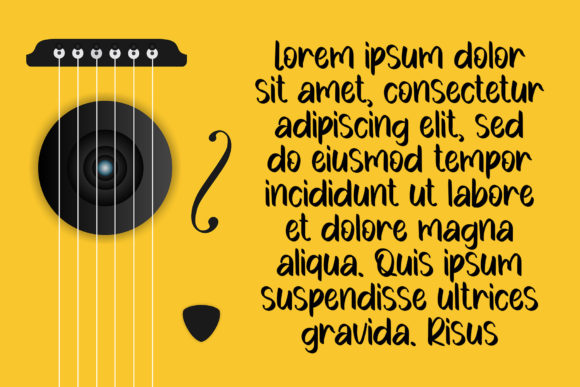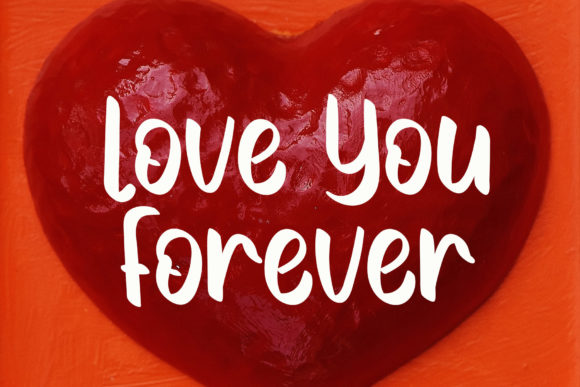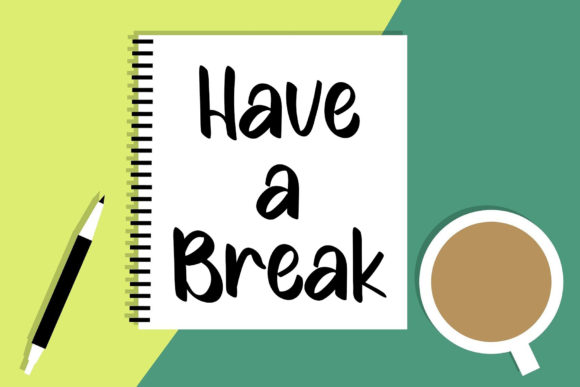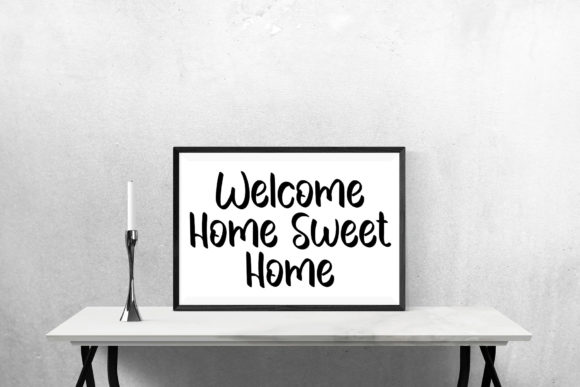
Introduction to Peanut Font
Have you ever stared at a blank canvas, waiting for inspiration to strike? That’s exactly what happened to many designers when they stumbled upon the Peanut Font – a clean, neat, and smart-looking handwritten font that breathes life into any creative project. The moment you lay eyes on its elegant script, you know you’ve found a treasure trove of design possibilities.
The Birth of a Design Resource
Developed specifically for those seeking a beautiful and refreshing look for their designs, the Peanut Font is a game-changer for designers. Its high-quality, transparent background allows for seamless integration into any project, from logos to graphics and beyond. Whether you’re working on a free download or a commercial venture, this font is sure to elevate your design to new heights.
A Valuable Addition to Your Toolbox
With the Peanut Font, designers can now add a touch of sophistication and personality to their work. Its versatility makes it an ideal choice for a wide range of creative projects, from branding to editorial design. So why settle for ordinary when you can have extraordinary with the Peanut Font?
Key Features of Peanut Font
- High-quality design resource suitable for various creative projects, including logos, graphics, and typography.
- Comes with a transparent background, making it easy to customize and integrate into different design elements.
- Includes a large character set, making it an ideal choice for multilingual creative projects.
- Designed to be scalable, with a resolution of 300 DPI, ensuring crisp and clear text at various sizes.
- Features a unique, modern aesthetic that sets it apart from other fonts, making it a great addition to any design portfolio.
Honest Review: Peanut Font
I recently came across the Peanut Font, and I was excited to give it a try for my latest creative project. Upon downloading it, I was impressed by the high quality of the font. It’s a great addition to any design resource.
- High-quality design: The Peanut Font is well-crafted, with smooth lines and a clean aesthetic.
- Transparent background: The font’s transparent background makes it easy to layer over other design elements.
While the Peanut Font is a great addition to my design resource, I did encounter a few limitations:
- Limited character set: The font only includes a limited character set, which may not be suitable for complex designs.
- Lack of bold weights: I found that the font could benefit from additional bold weights to add more versatility to my designs.
Overall, I’m impressed with the Peanut Font’s design and usability. While it may have some limitations, it’s a great resource for designers working on creative projects, and I would recommend it to others.
Tips and Use Cases
Some common use cases for the Peanut Font include:
Tips for getting the most out of the Peanut Font include:
Alternatives to Peanut Font